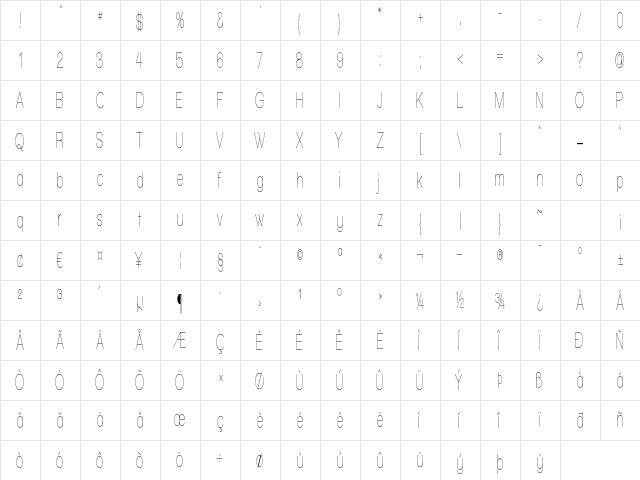
Walkway UltraCondensed Regular
Design Context for Walkway UltraCondensed Typeface
Walkway UltraCondensed is a composed and adaptable typeface that performs quietly and consistently across a wide range of design contexts. The condensed width makes it efficient for tight spaces without sacrificing legibility.